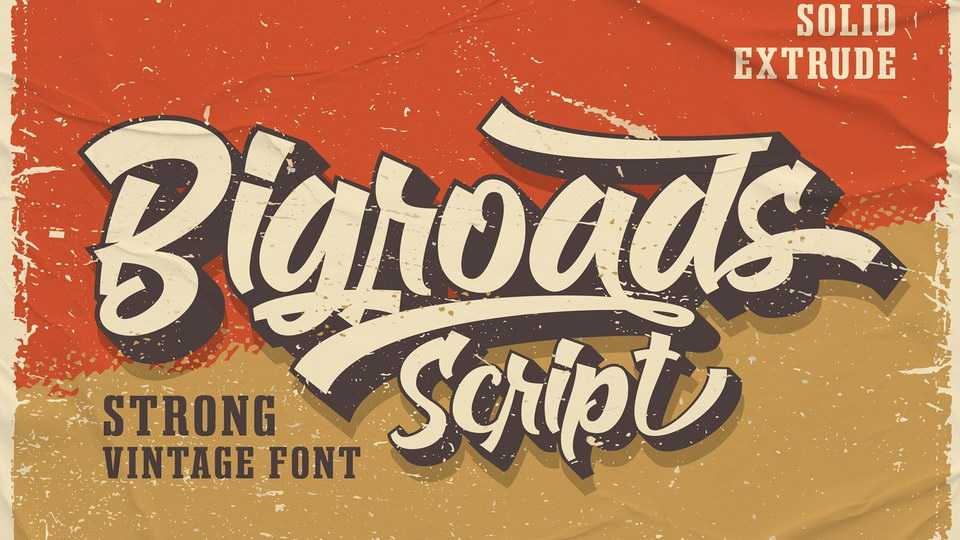
Download Bigroads Script font, a layered bold typeface with extruding, inspired by a Retro aesthetic. Made in combination with hand lettering, Bigroads Script comes with dramatic movement and it’s great for any next creative project that needs a retro vibe or modern touch.